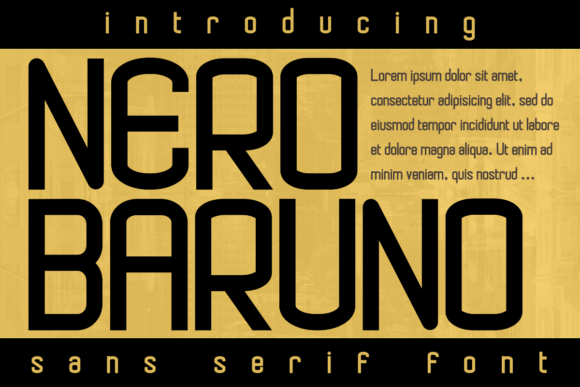
Unleash the power of storytelling with Nero Baruno, a font specifically crafted to elevate your short stories to new heights. Crafted by the renowned Deedeetype, this sans serif typeface exudes an air of elegance and sophistication, making your words dance off the page and captivating your readers from the very first sentence.
Nero Baruno's chunky letters and clean lines create a visual symphony that effortlessly guides the reader's eye through your narrative. Each stroke is a testament to the precision and care that went into its creation, ensuring that your words are presented with the utmost clarity and impact.
Whether you're crafting a spine-tingling mystery, a heartwarming tale, or a thrilling adventure, Nero Baruno is the perfect companion for your literary journey. Its versatility allows it to effortlessly adapt to any genre, enhancing the emotional depth and authenticity of your prose.
Imagine your words taking on a life of their own as they flow effortlessly through the curves and angles of Nero Baruno. The boldness of the letters commands attention, while the subtle nuances and delicate flourishes add a touch of intrigue and charm. Your characters will leap off the screen, their personalities and motivations coming alive as they interact with the reader in a way that only Nero Baruno can provide.
With Nero Baruno, you're not just downloading a font; you're investing in a storytelling tool that will transform your short stories into unforgettable experiences. Let your imagination soar, and watch as your words become masterpieces with the help of this extraordinary typeface.